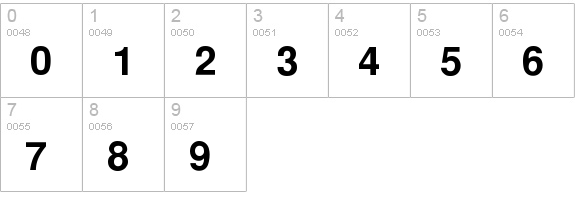
HI Keawe Bold Font Details
HI Keawe Bold is a strong, high-contrast variant in the HI typeface family \xE2\x80\x94 well suited to headlines, attention-grabbing titles, and strong calls-to-action.
The HI Keawe Bold font is a stylish and modern typeface that exudes confidence and sophistication. Its bold appearance makes it perfect for headlines, titles, and other attention-grabbing designs. With its unique character shapes and strong presence, this font is sure to make any project stand out. What's even better is that the HI Keawe Bold font is freely available to download at FontsMarket.com! This means you can easily access this high-quality font without any cost, making it a fantastic choice for both personal and commercial projects. Don't miss out on the opportunity to elevate your designs with the striking HI Keawe Bold font today!